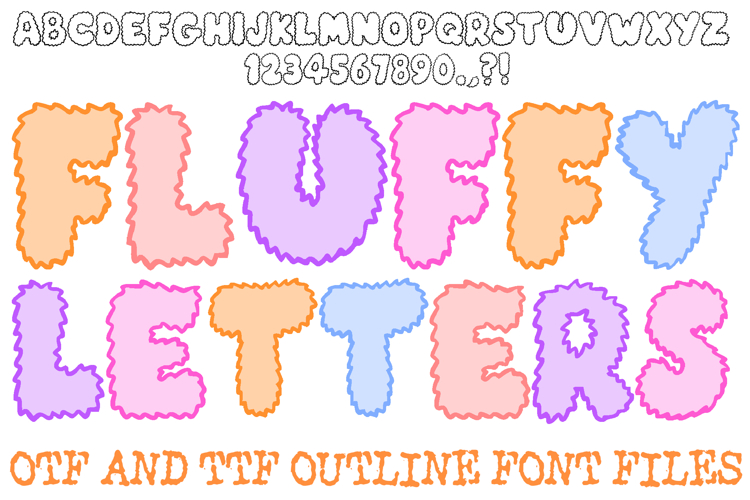
Give your designs a soft, tactile touch with the Fluffy Letters Font! This whimsical display alphabet features bold, puffy characters defined by a playful, irregular "furry" outline that mimics the look of soft shag or cozy wool. It is an ideal choice for nursery wall art, children's birthday invitations, playful branding, and creative digital scrapbooking.
Each letter and number is crafted to look like a plush, handcrafted creation, adding a warm and approachable aesthetic to your text. Whether you are designing "furry" monster-themed party decor, cozy winter social media graphics, or fun classroom materials, the Fluffy Letters Font provides a unique, textured foundation that pops off the page.
Why Your Designs Will Feel Extra Cozy:
Textured Furry Outlines: Every character features a jagged, hand-drawn border that creates a soft, 3D "fluffy" appearance.
Playful Puffy Aesthetic: The thick, rounded shapes give each letter a friendly and cheerful personality.